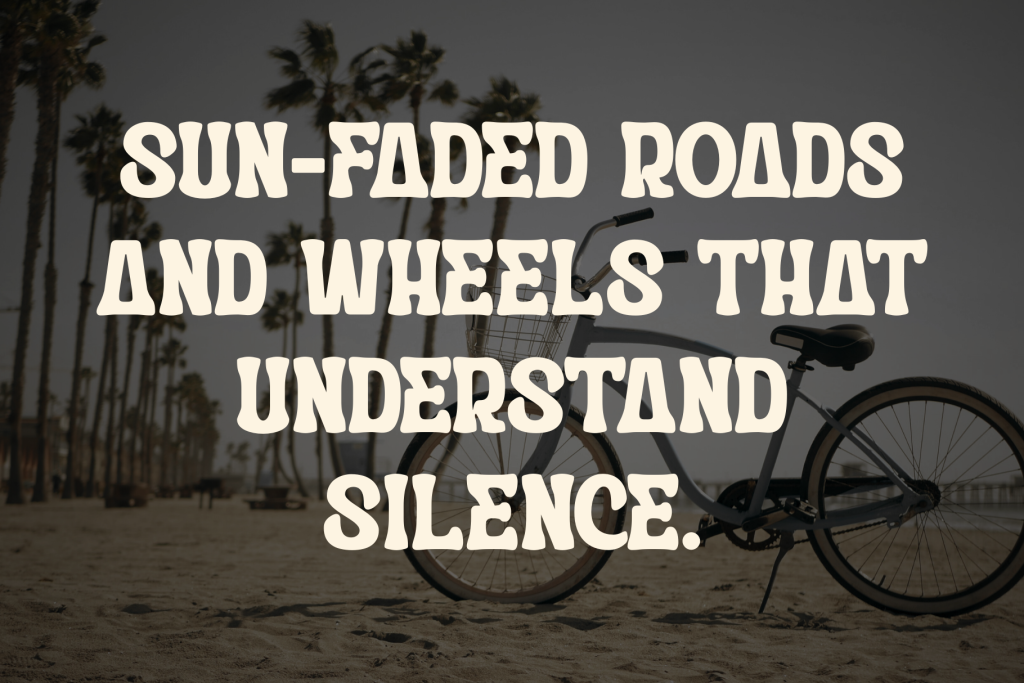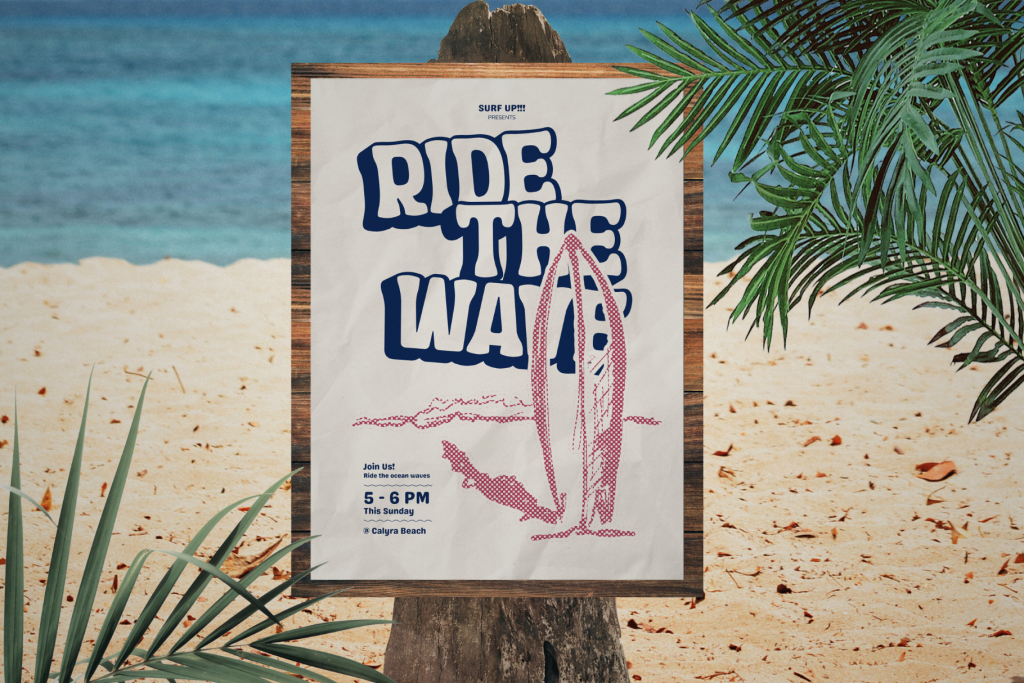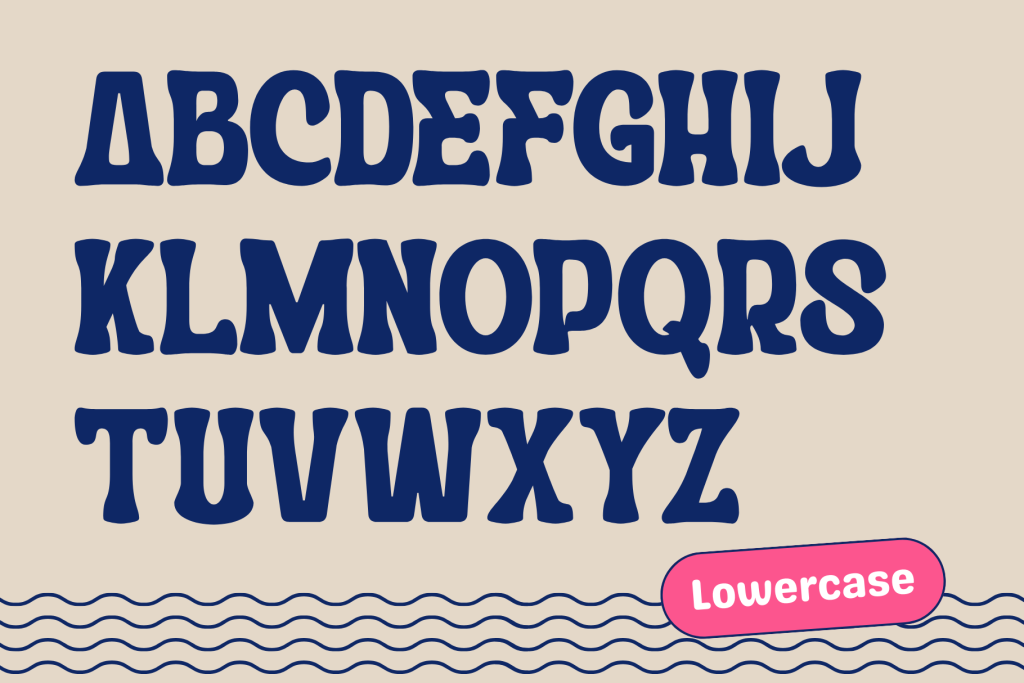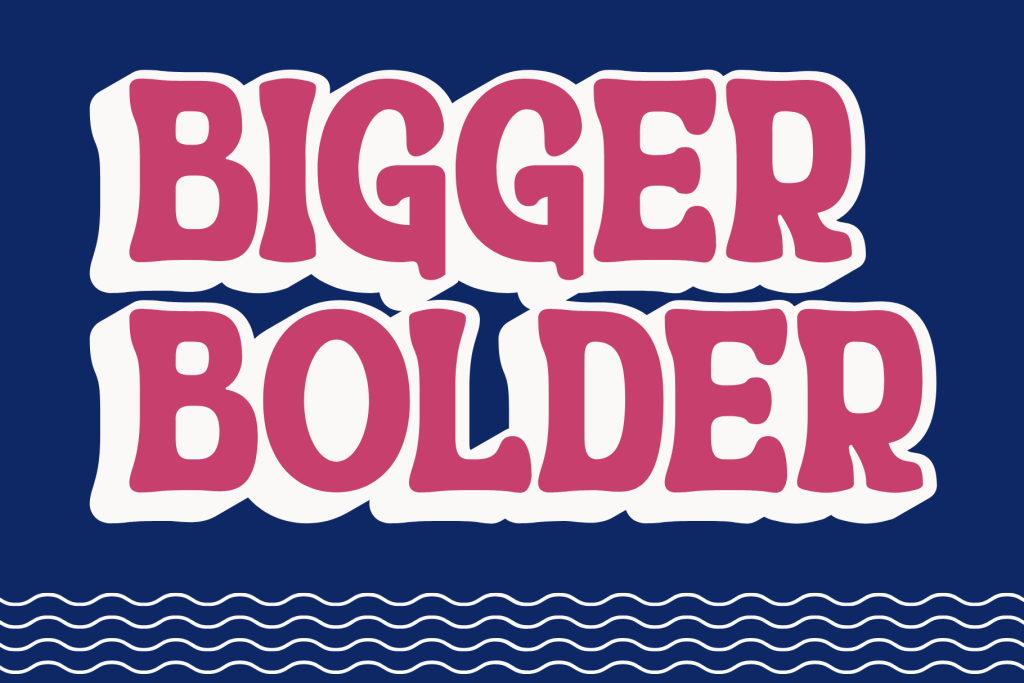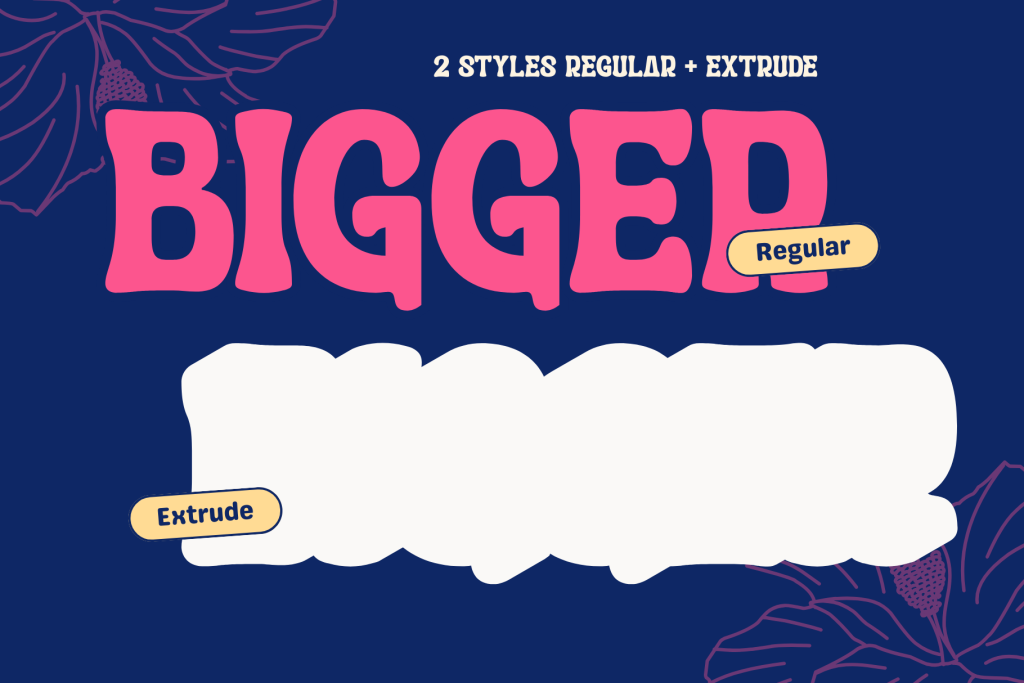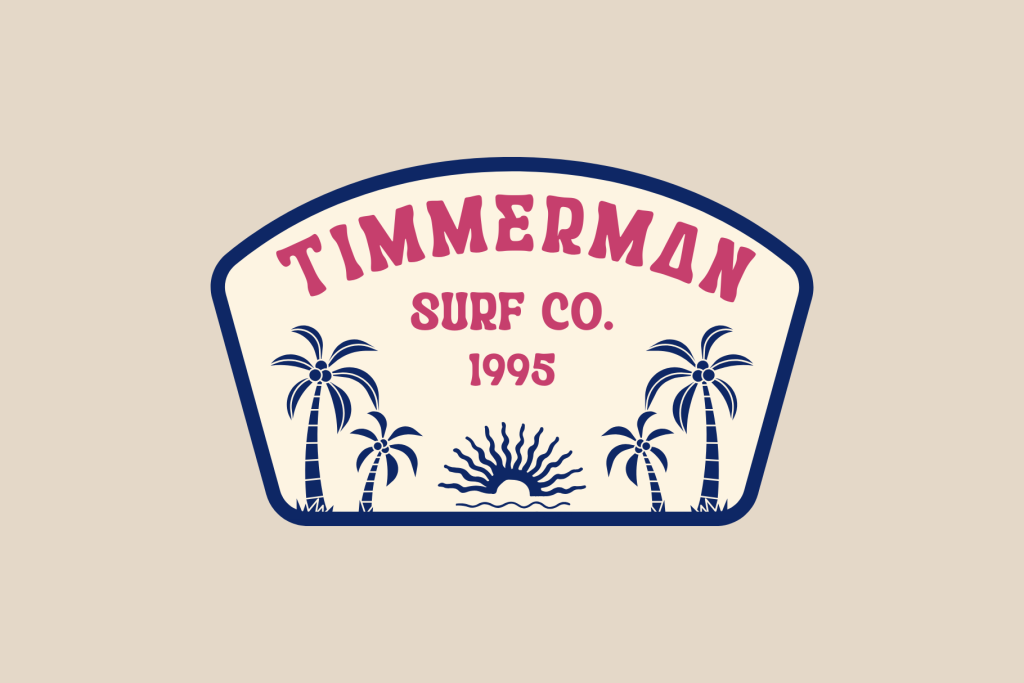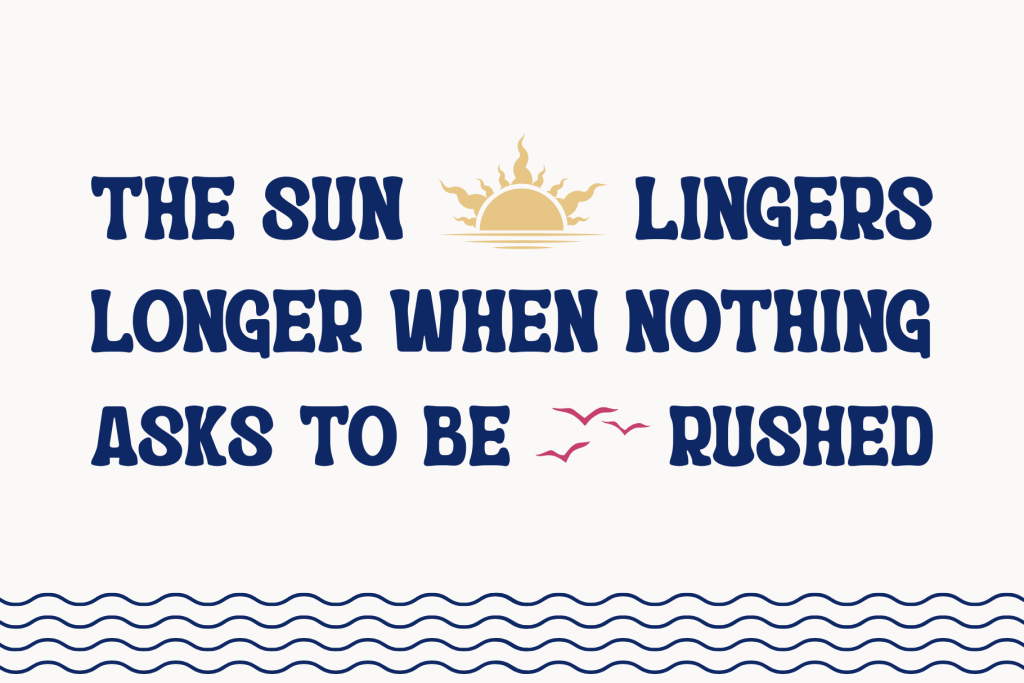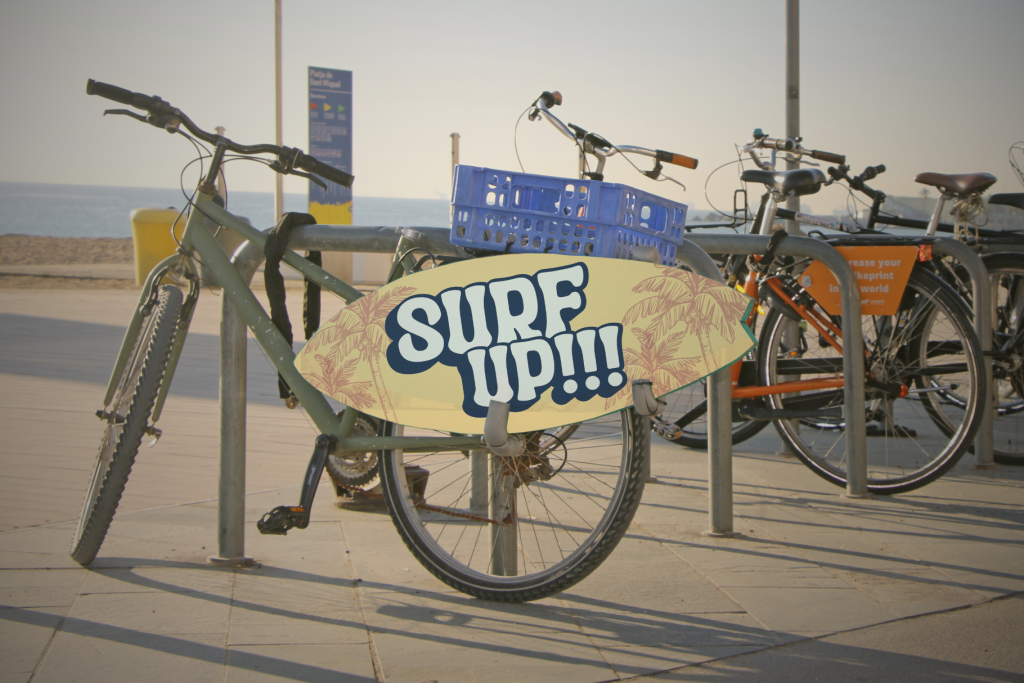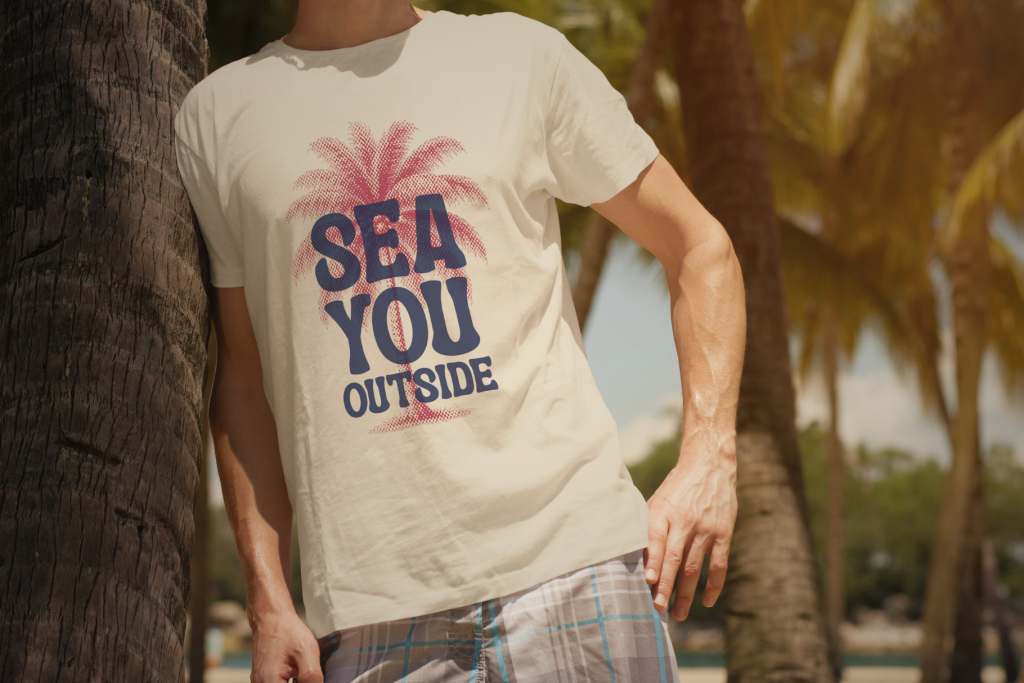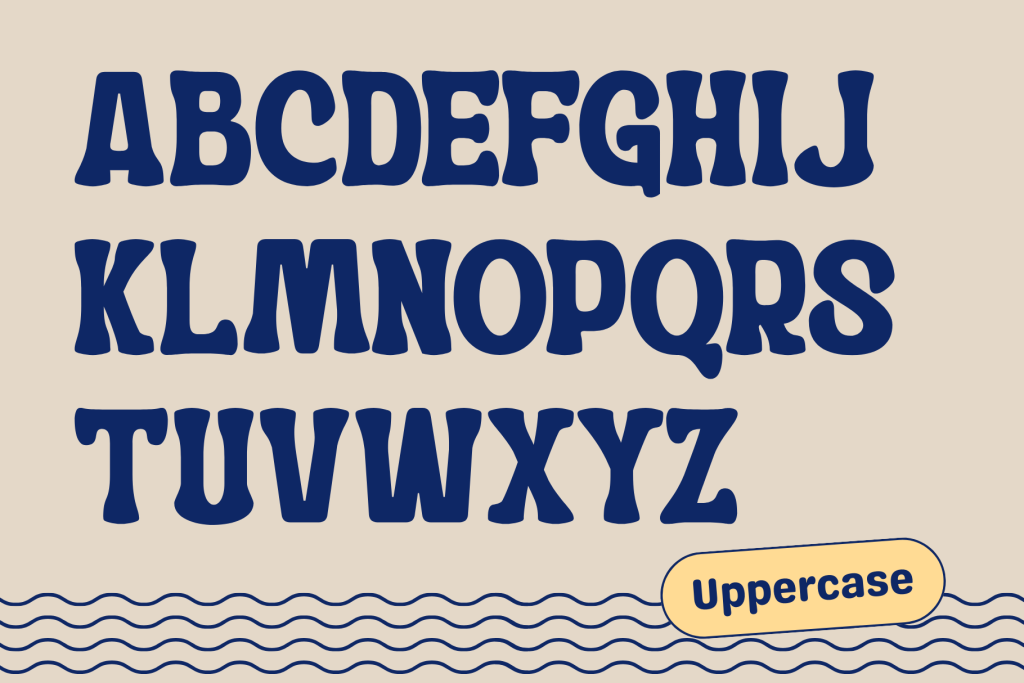
Calyra Retro – Surfing Logo Font
Calyra Retro offers beautiful typographic harmony for a diversity of design projects, including logos & branding, social media posts, advertisements & product designs.
• Surfing Logo Font
• Modern Design
• Perfect for Branding & Logos